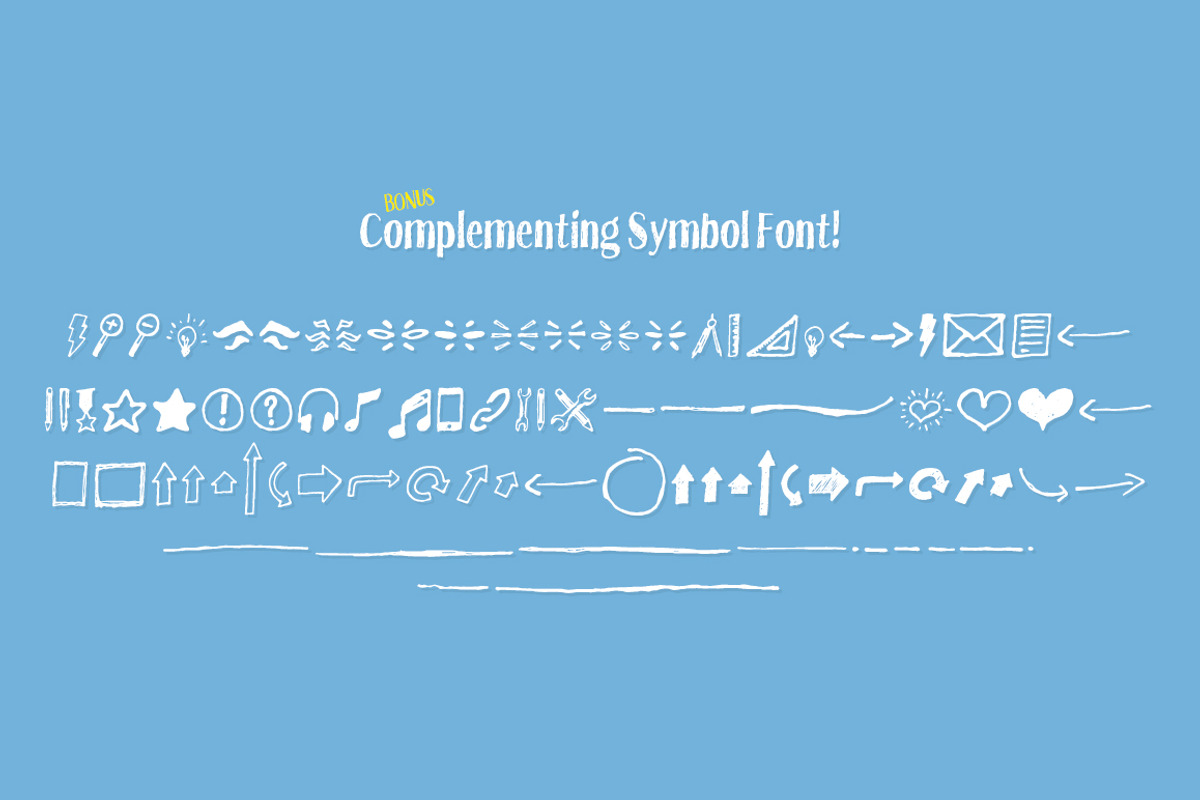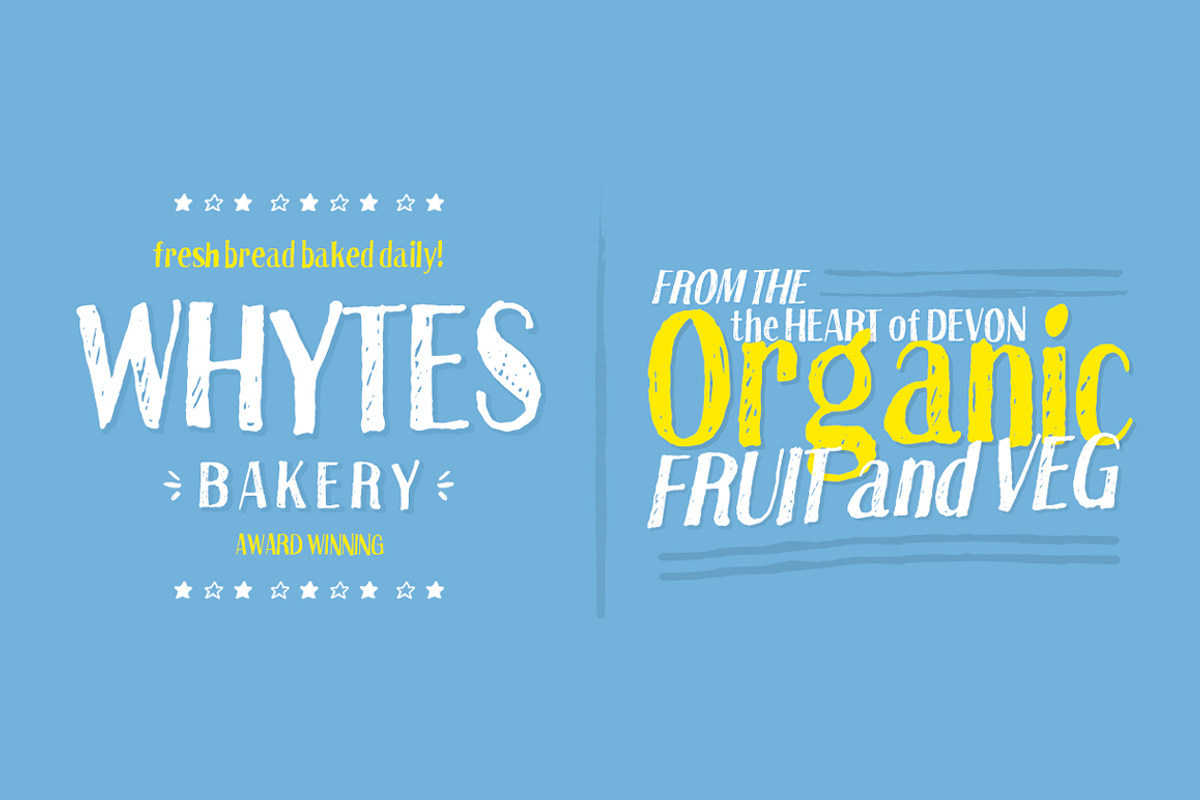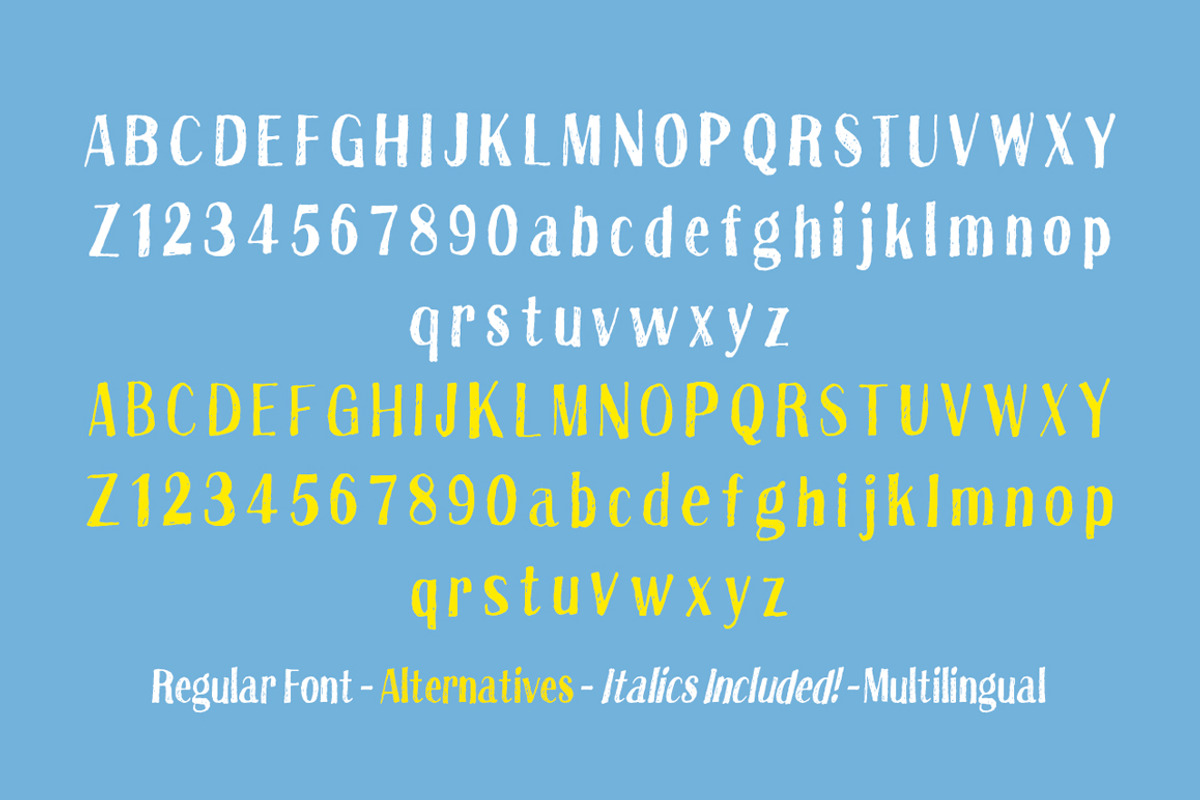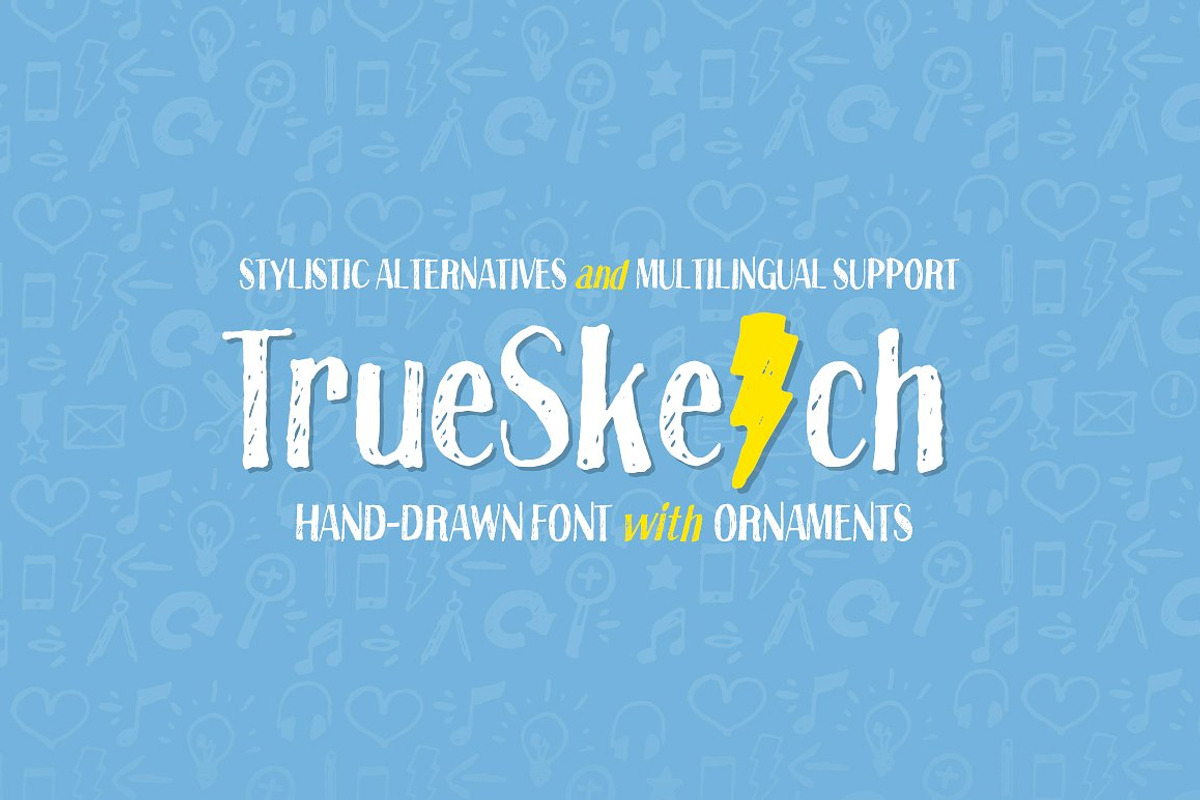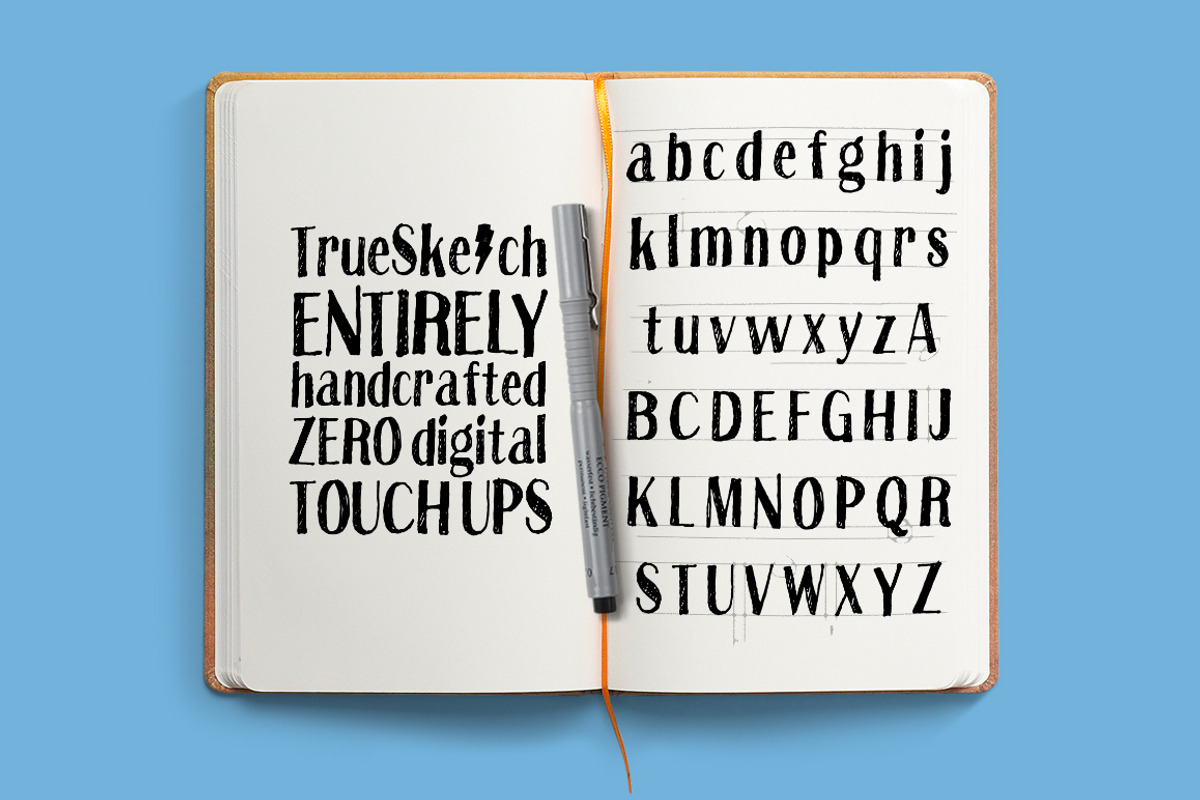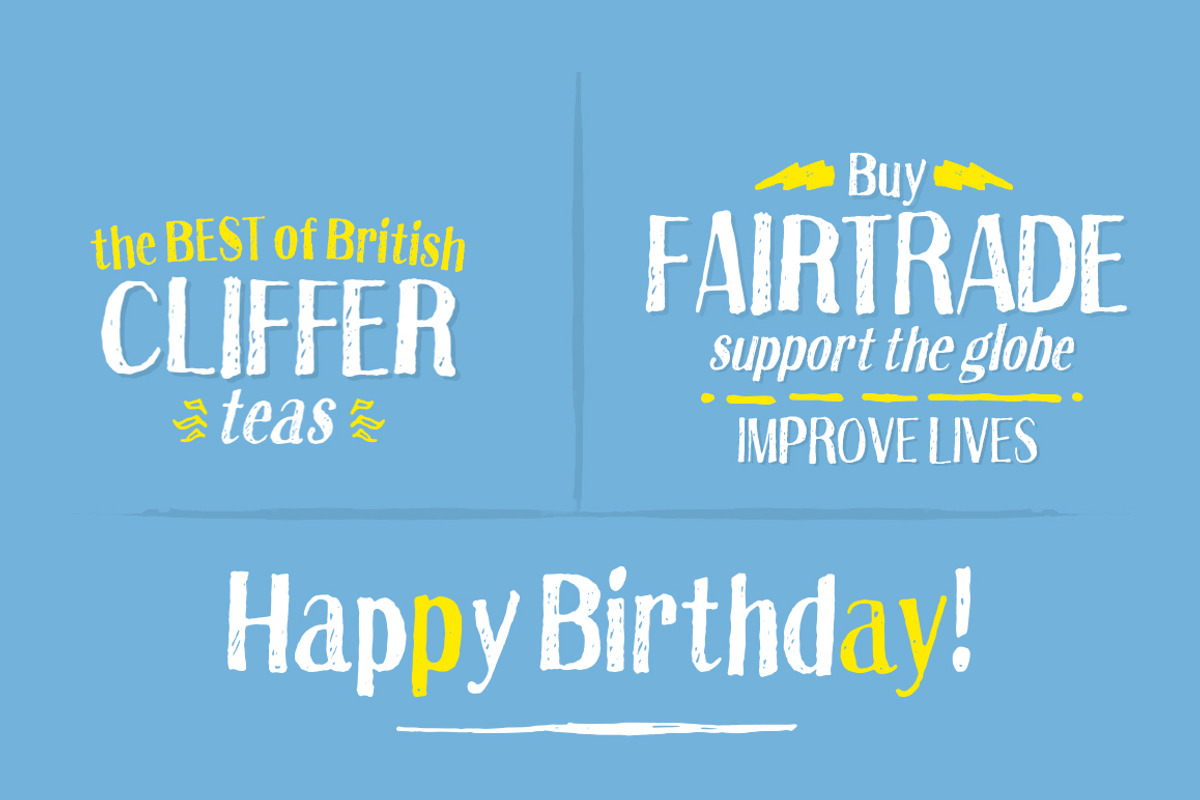
Truesketch + Bonus Ornament Font
Truesketch + Bonus Ornament Font by Tom Chalky is a font selected for branding, posters, packaging, typography.
- TrueSketch is also Multilingual!
- True Sketch Regular
- True Sketch Italic
- True Sketch Ornaments
Truesketch + Bonus Ornament Font by Tom Chalky fits naturally into Branding, posters, packaging, typography.